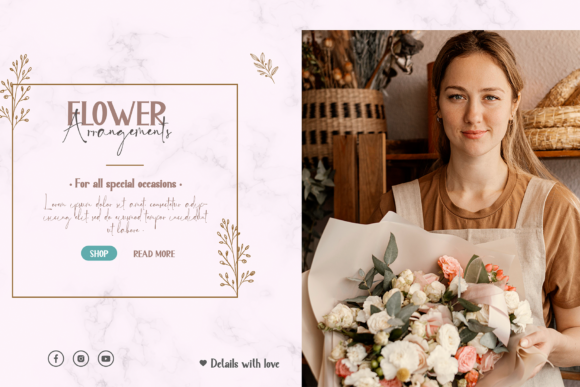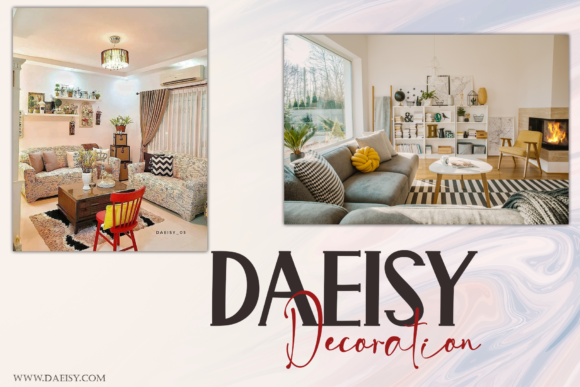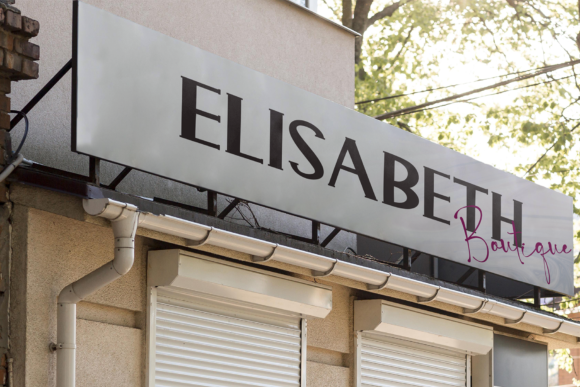
Introduction to Maletha Collection Font
Have you ever been stuck in the middle of a creative project, desperately searching for the perfect font to give it that extra oomph? It’s a moment we’ve all been there, staring at our screens, scrolling through endless options, and still, nothing seems quite right. But what if I told you there’s a solution to this eternal problem? Introducing the Maletha Collection Font, a game-changing duo of script and serif fonts that will breathe new life into your designs.
As a designer, you’re always on the lookout for high-quality design resources that will help you stand out from the crowd. That’s where the Maletha Collection Font comes in – a stunning and comprehensive duo font that’s perfect for giving your projects a branded but friendly feel. Whether you’re working on a free download or a commercial project, this font is sure to impress with its transparent background and versatile design.
Key Features of Maletha Collection Font
- High-quality design resource for creative projects, offering a unique and elegant style.
- Includes a range of font sizes, from small to large, suitable for various design applications, including titles, headings, and body text.
- Perfect for use in graphic design, digital art, and other creative projects where a sophisticated and refined look is desired.
- Comes with a comprehensive character set, including a wide range of letters, numbers, and symbols, making it a valuable design resource for any creative project.
Honest Review: Maletha Collection Font
I recently stumbled upon the Maletha Collection Font, and I must say it’s a great addition to any designer’s toolkit. This free download offers high-quality fonts perfect for creative projects that require a unique touch. The transparent background makes it easy to use with any design resource.
- Unique and creative font styles that add a personal touch to any design
- High-quality fonts that are perfect for printing or digital use
However, I do have a few limitations to mention:
- ⚠️ Limited font styles available, which may not be suitable for all projects
Overall, I’m impressed with the Maletha Collection Font. It’s a great resource for designers who want to add a unique touch to their creative projects. While it may have some limitations, the quality and versatility of the font make it a worthwhile download.
The Maletha Collection Font is perfect for a wide range of creative projects, including logos, graphics, and presentations. Its transparent background makes it ideal for use on top of other design elements. Whether you’re working on a personal or professional project, this font is a great design resource to have in your toolkit.